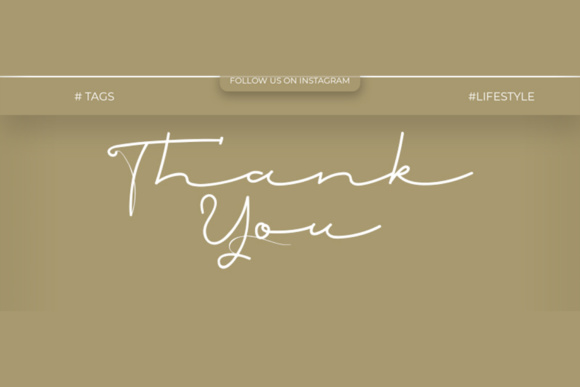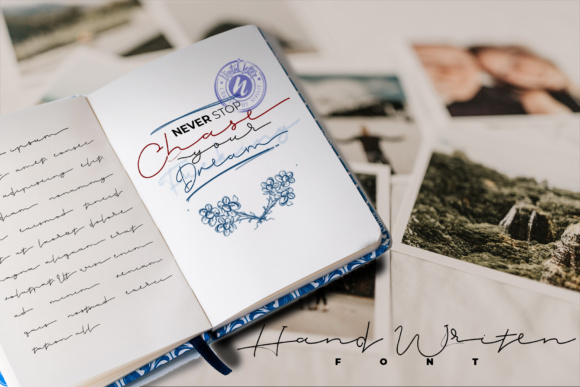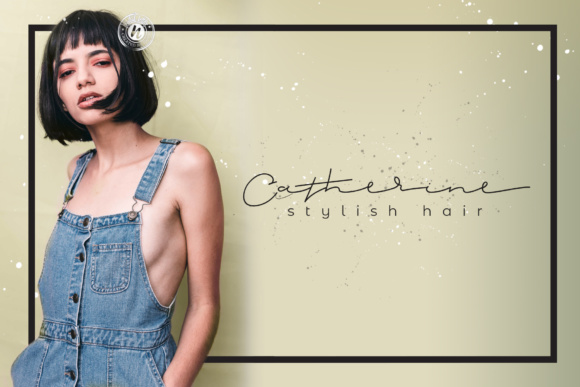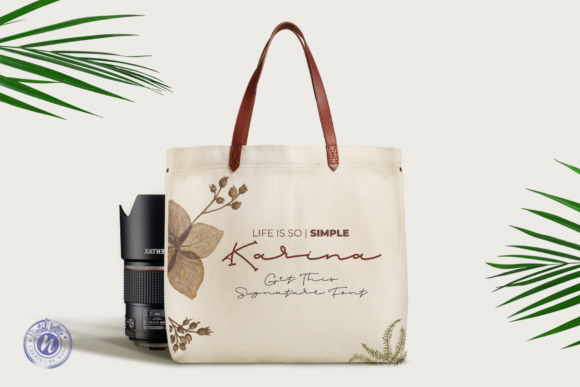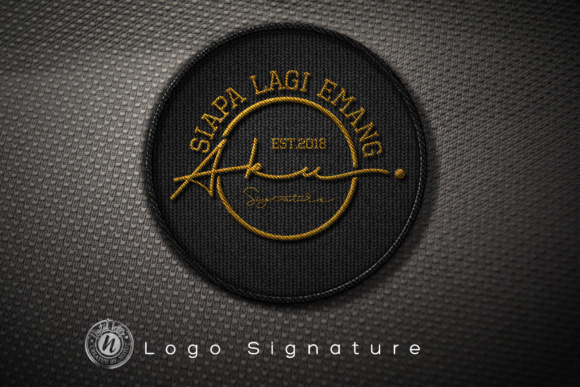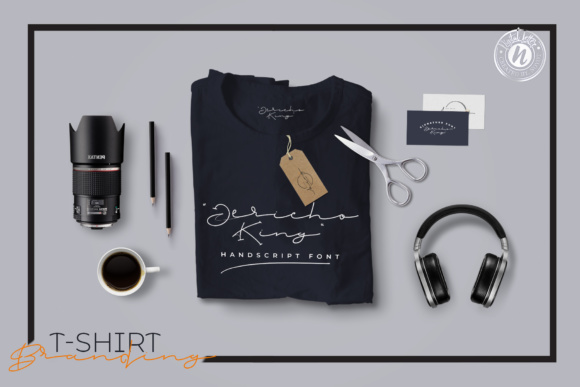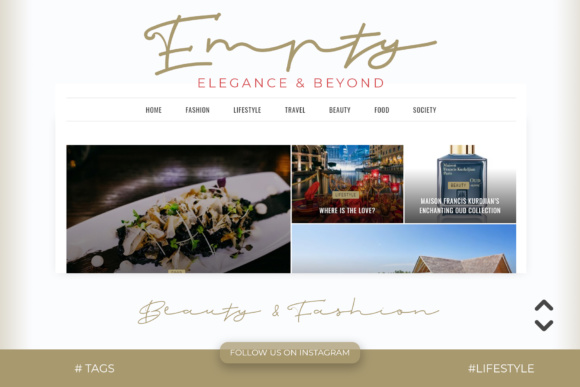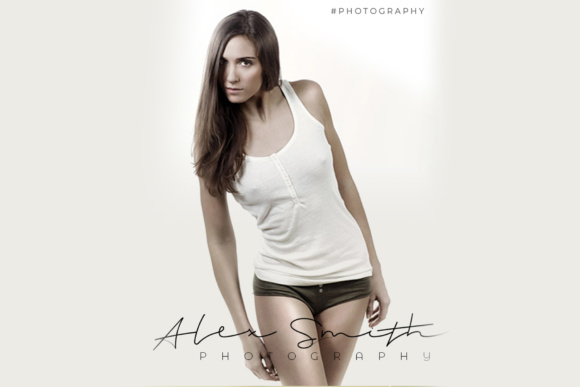
Jericho King Font
Jericho King is a classy, modern, and natural handwritten script font which was made to handle every minimalist design project.
With its signature style, Jericho King suits perfectly for signatures, stationery, logos, typography quotes, magazine or book covers, website headers, and every other design that needs a elegant feel.